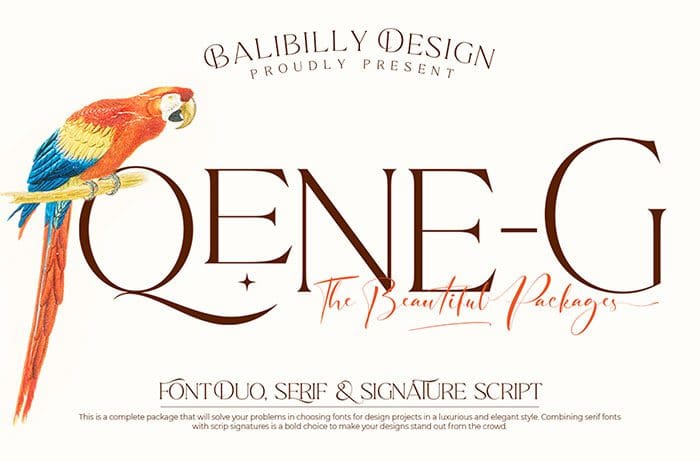
Qene-G Serif Font
Qene-G Serif Font. It looks funny, happy, and cheer up. The idea was to incorporate some of the edgiest looks of modern luxury fashion. Thanks to Balibilly Design for sharing this font! Take a look at this portfolio for more of his stunning fonts.